TikTok Caption Fonts
TikTok captions usually reward styles that stay legible on small screens while still feeling energetic. Shorter styled lines tend to work better than heavily decorated blocks.
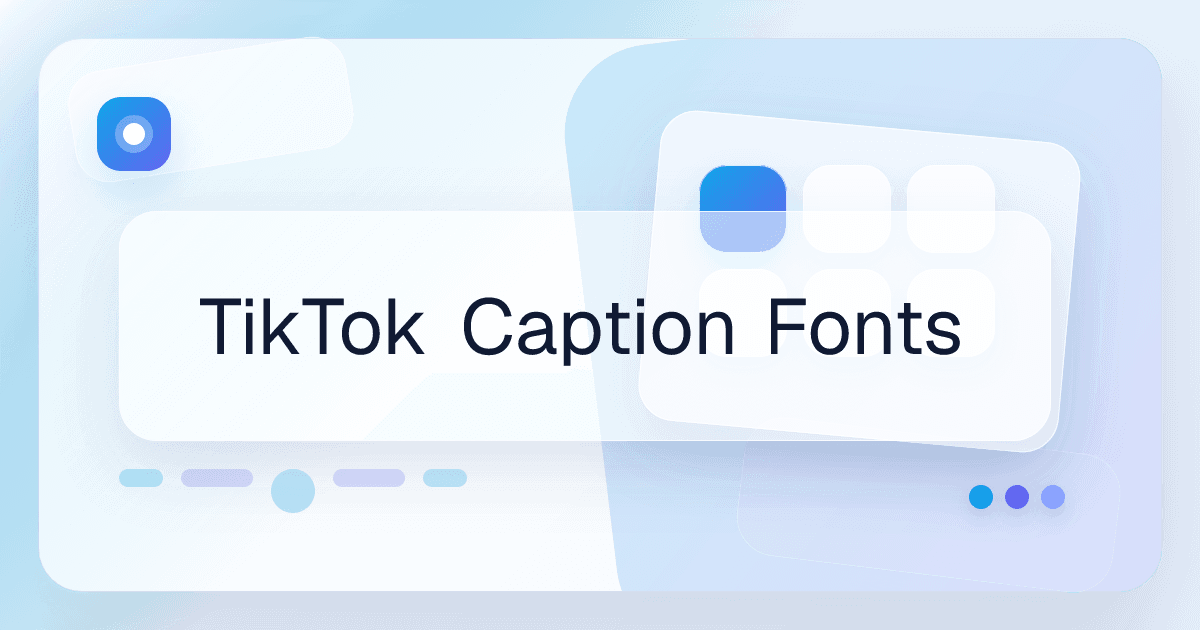
Where this style works best
Short hook lines
Trend captions
Creator promo text
Tips
Keep the result readable
Lead with a strong first line before adding extra decoration.
Use compact styles that remain readable on mobile.
Match your caption style with your profile display name for consistency.
How TikTok caption text should behave
TikTok captions usually reward short, energetic, mobile-readable text. The strongest styling helps the opening words stand out without making the whole caption feel cluttered.
Best font directions for TikTok captions
Compact bold, short uppercase, and creator-friendly sans styles usually outperform dense decorative text because they stay readable on small screens.
What font styles work best for TikTok captions?
Bold, compact, and high-contrast styles usually work best because they keep the hook readable while adding personality.